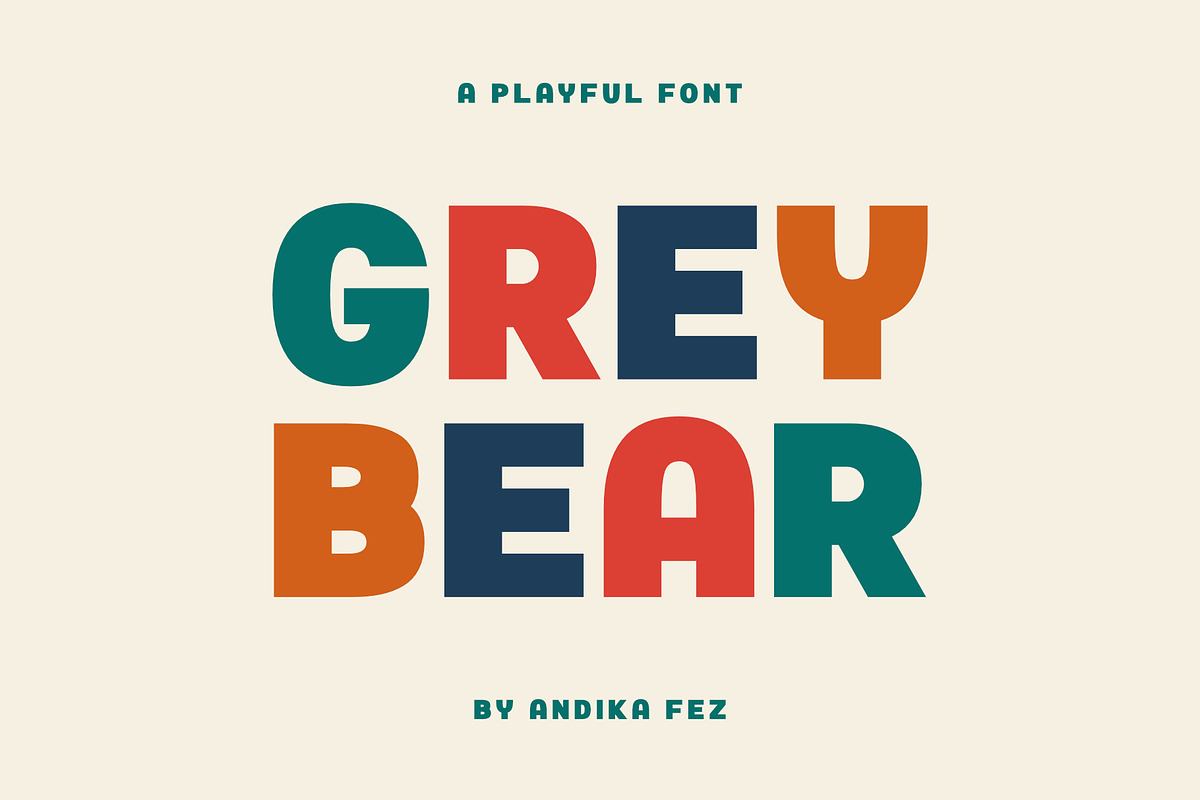
GREY BEAR A PLAYFUL FONT Free Download
Grey Bear – A Playful Font Free Download is a fun and friendly typeface designed to bring smiles to any project. With its chunky shapes, rounded edges, and whimsical style, Grey Bear is perfect for children’s books, birthday invitations, toy packaging, classroom materials, and cheerful branding.
This font radiates warmth and personality, making it ideal for any design that needs to feel approachable, lighthearted, and full of energy. Whether you're creating colorful posters or educational content, Grey Bear adds a joyful touch that stands out.